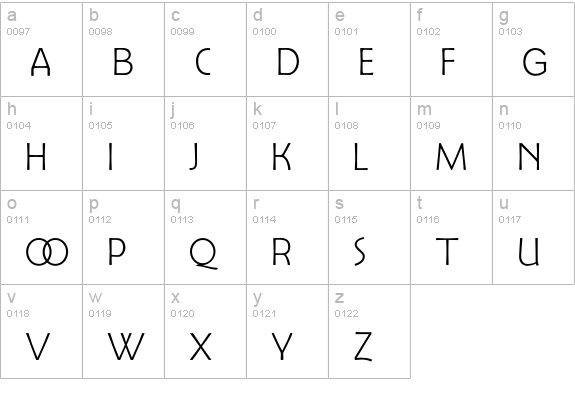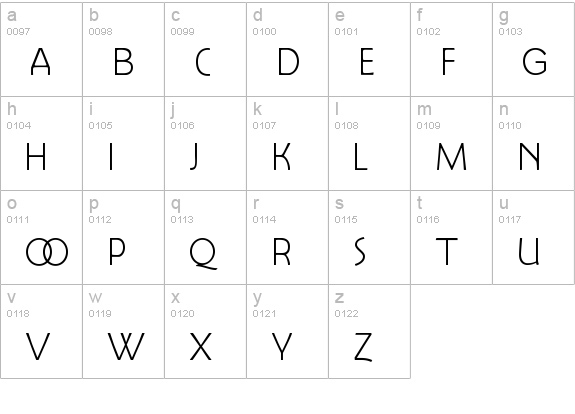
Berlinsans-LightExpert Font Details
Introducing Berlinsans-LightExpert font, a sleek and modern typeface designed for those seeking a sophisticated and professional look in their projects. With its clean lines and elegant curves, this font is perfect for a wide range of design applications, from branding to editorial design. Berlinsans-LightExpert font exudes a sense of refinement and style, making it ideal for creating eye-catching headlines, logos, and other display elements. Its light weight adds a touch of delicacy and sophistication to any project, while still maintaining excellent readability. What's even better is that Berlinsans-LightExpert font is completely free to download at FontsMarket.com. This means you can easily access this high-quality typeface without any cost, making it a valuable addition to your font library. Don't miss out on the opportunity to elevate your designs with the timeless elegance of Berlinsans-LightExpert font.